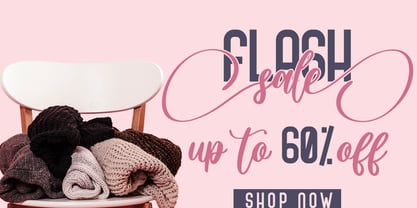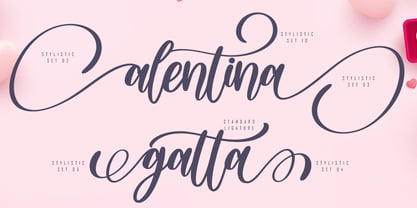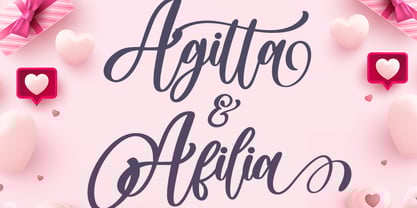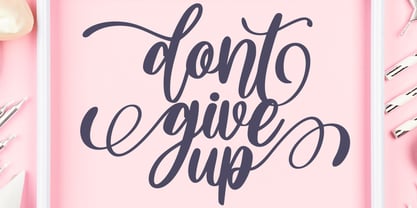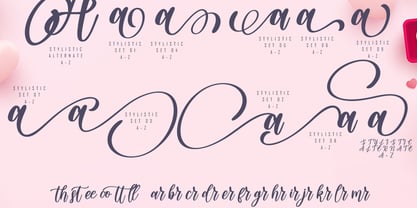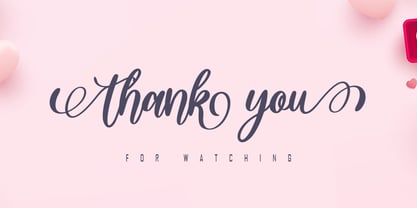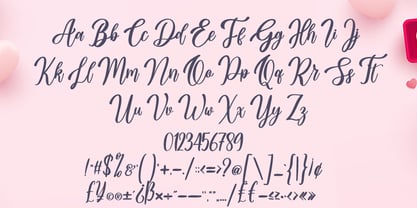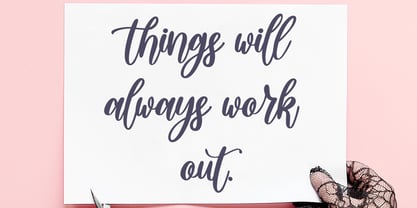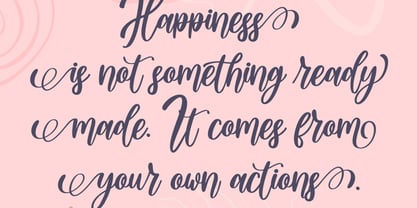
Agitta Afilia
by Skiiller Studio
The Agitta Afilia Font Family was designed by Irfan Mahmudin and published by Skiiller Studio. Agitta Afilia contains 1 styles.
Agitta Afilia Lovely Script Font is a stunning script font that combines a modern and stylish aesthetic with a wealth of features. It boasts over 200 alternate characters encoded in PUA and more than 400 glyphs, making it ideal for various applications such as promotions, business branding, clothing design, weddings, and more. Key features include ligatures, stylistic alternates for both uppercase and lowercase letters, and fully accessible PUA encoded characters without the need for additional design software. This font also supports Basic Latin language characters, ensuring versatility in your projects. Enhance your designs with Agitta Afilia, perfect for creating eye-catching and elegant typography.
Designers: Irfan Mahmudin
Publisher: Skiiller Studio
Foundry: Skiiller Studio
Design Owner: Skiiller Studio